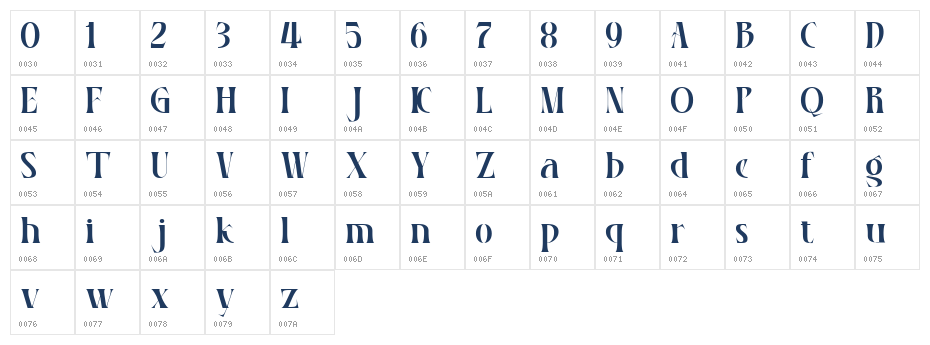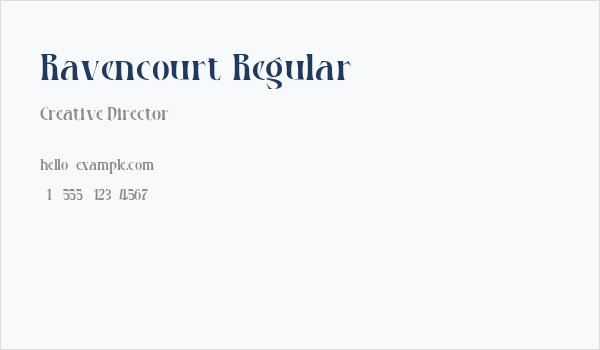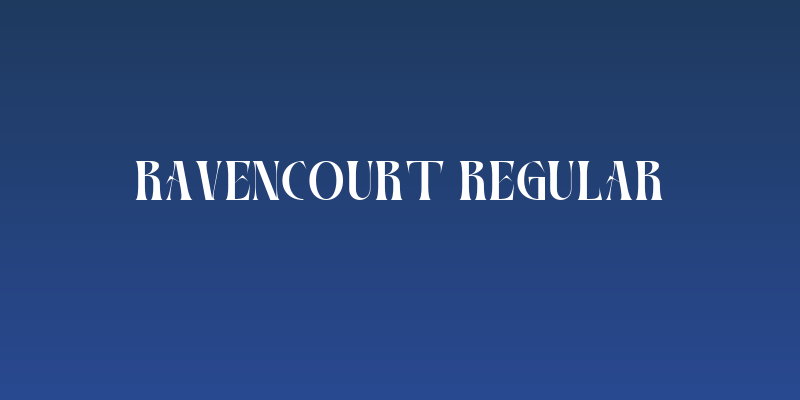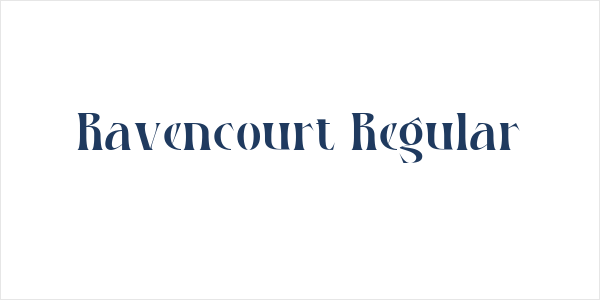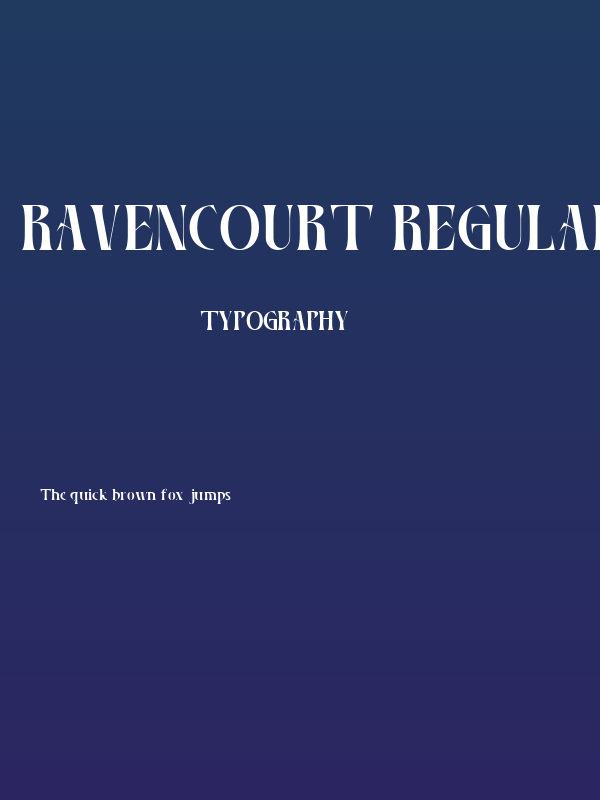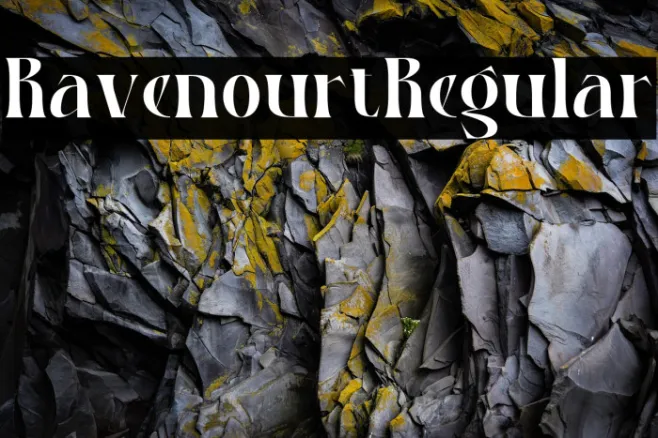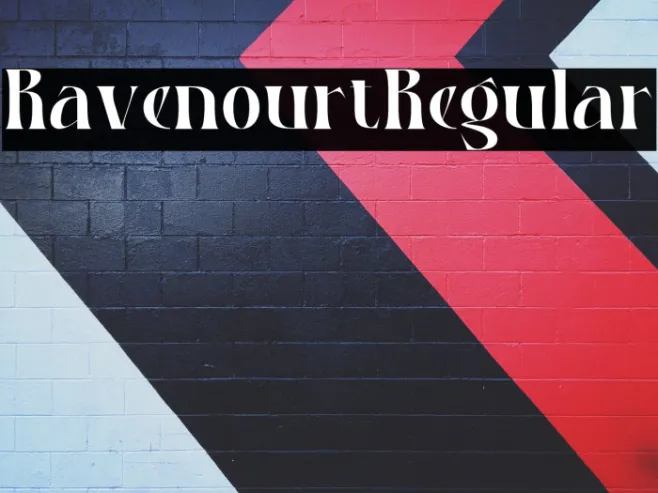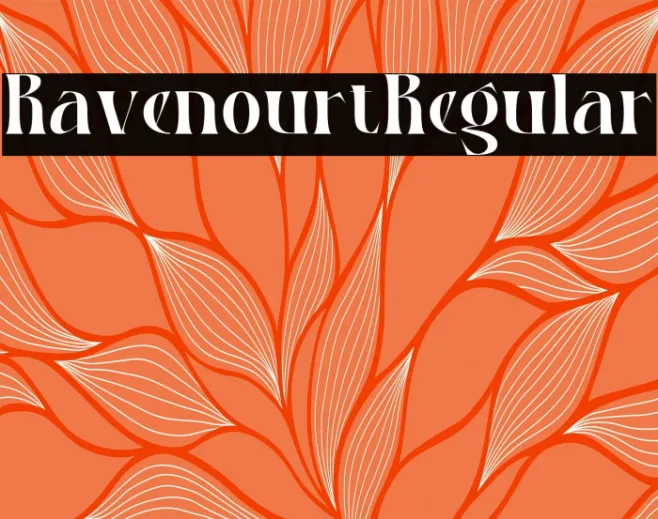
Ravencourt Regular Font
Ravencourt Regular Description
A decorative serif font with high contrast and stylized, elegant letterforms, featuring sharp serifs and a modern aesthetic.
| Overall Style | Modern, Elegant, Decorative |
| Use Case | Headlines, Logos, Invitations, Branding |